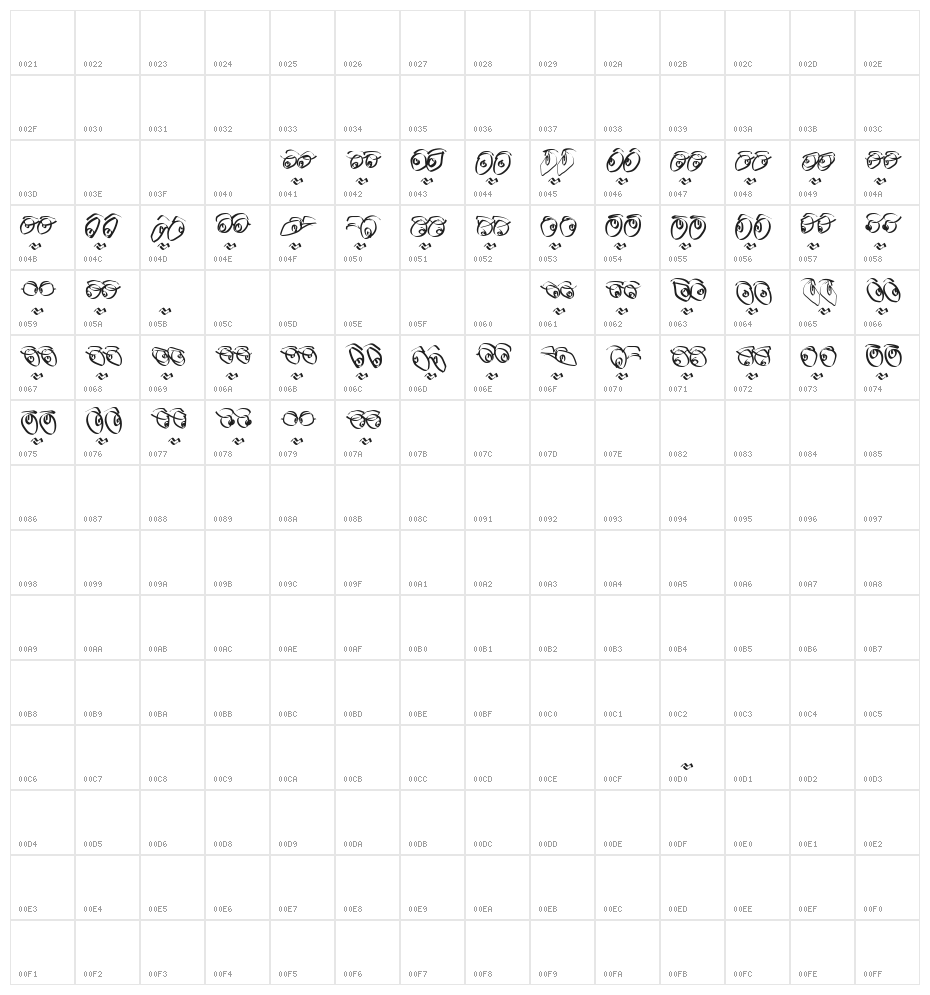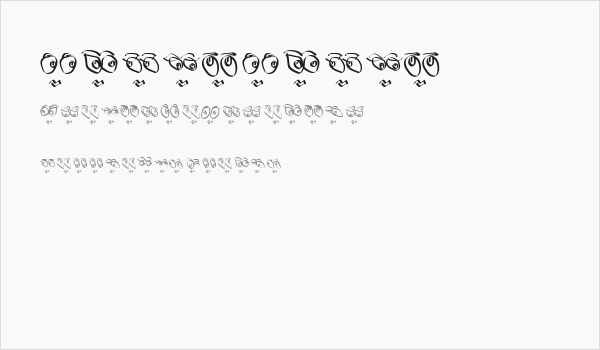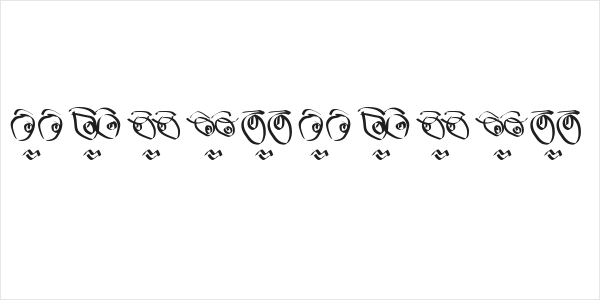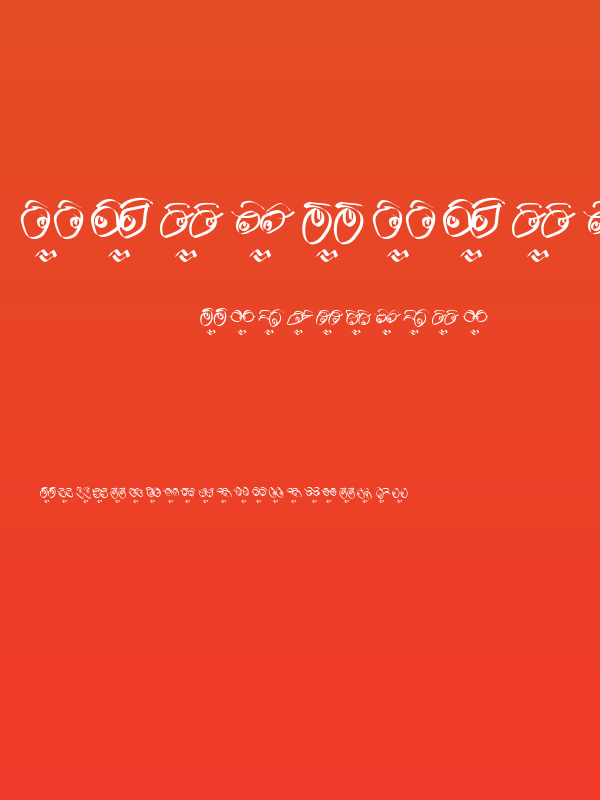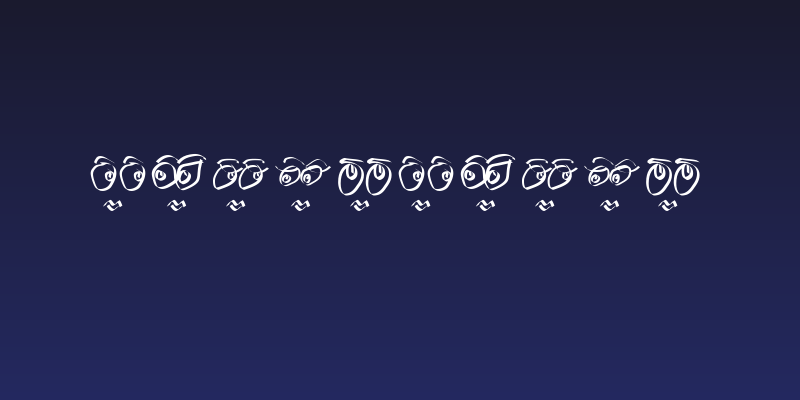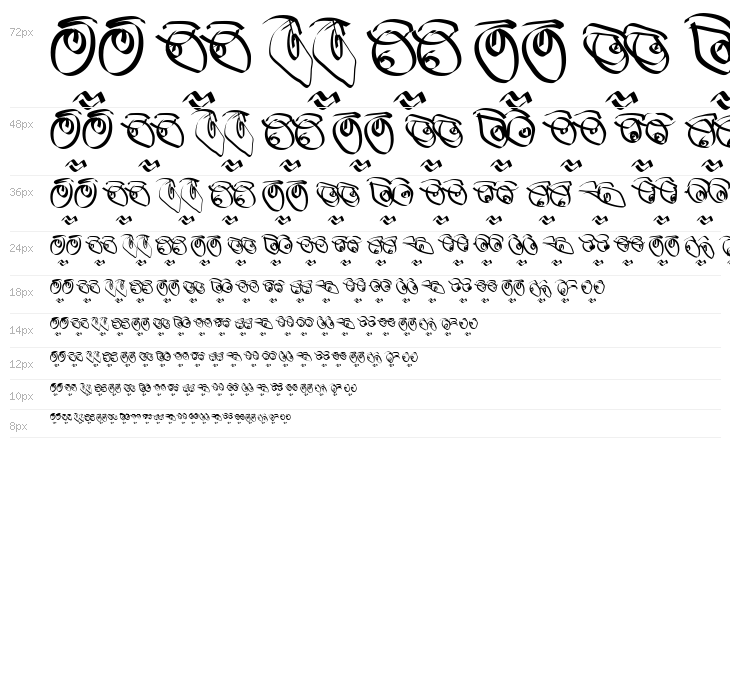
SchauSchau Font
SchauSchau Description
This font is a playful and whimsical design, characterized by its unique representation of letters as pairs of eyes. Each character is creatively crafted to resemble eyes with varying expressions, giving the font a lively and animated feel. The strokes are bold and dynamic, with a hand-drawn quality that adds to its charm. The font maintains a consistent style across uppercase, lowercase, numbers, and special characters, making it versatile for various creative projects. Its distinctive appearance makes it ideal for designs that require a fun and engaging visual element.
| Overall Style | Whimsical, Playful |
| Use Case | Logos, Posters, Children's books |
| Proposed Projects | Ideal for children's books, comic strips, playful branding, and eye-catching posters. |